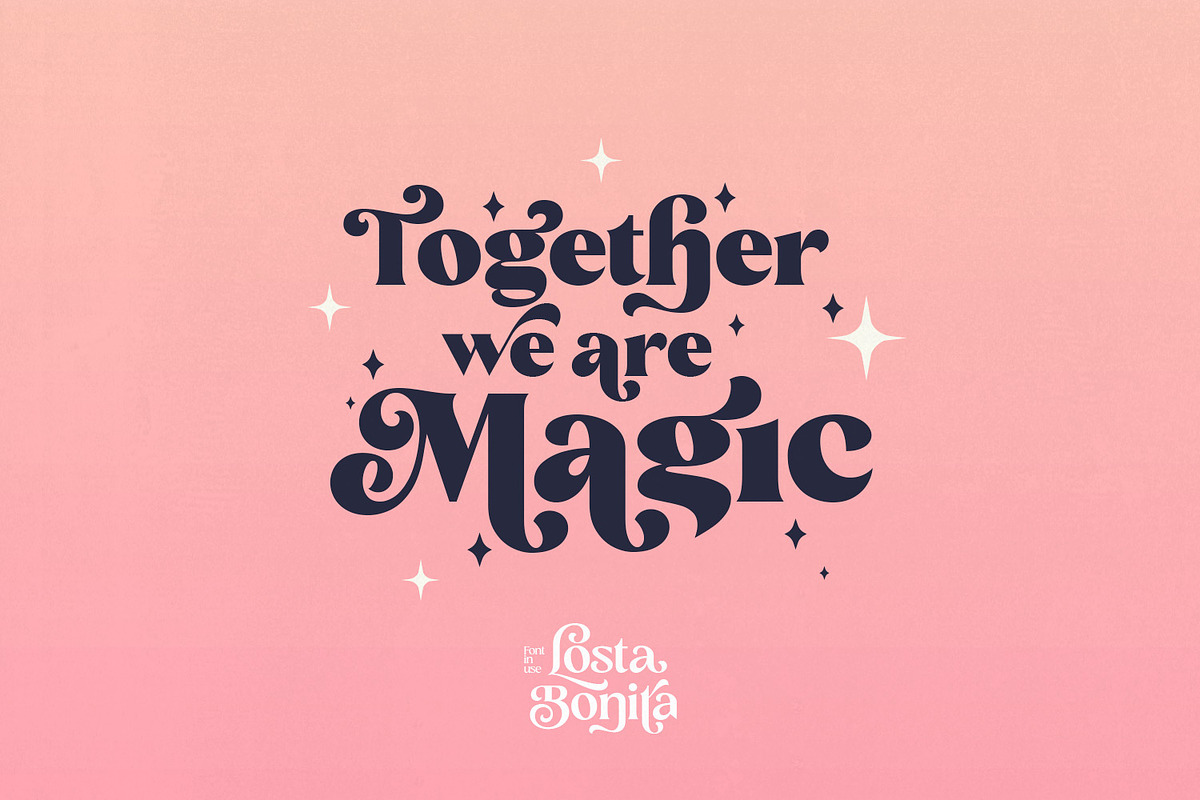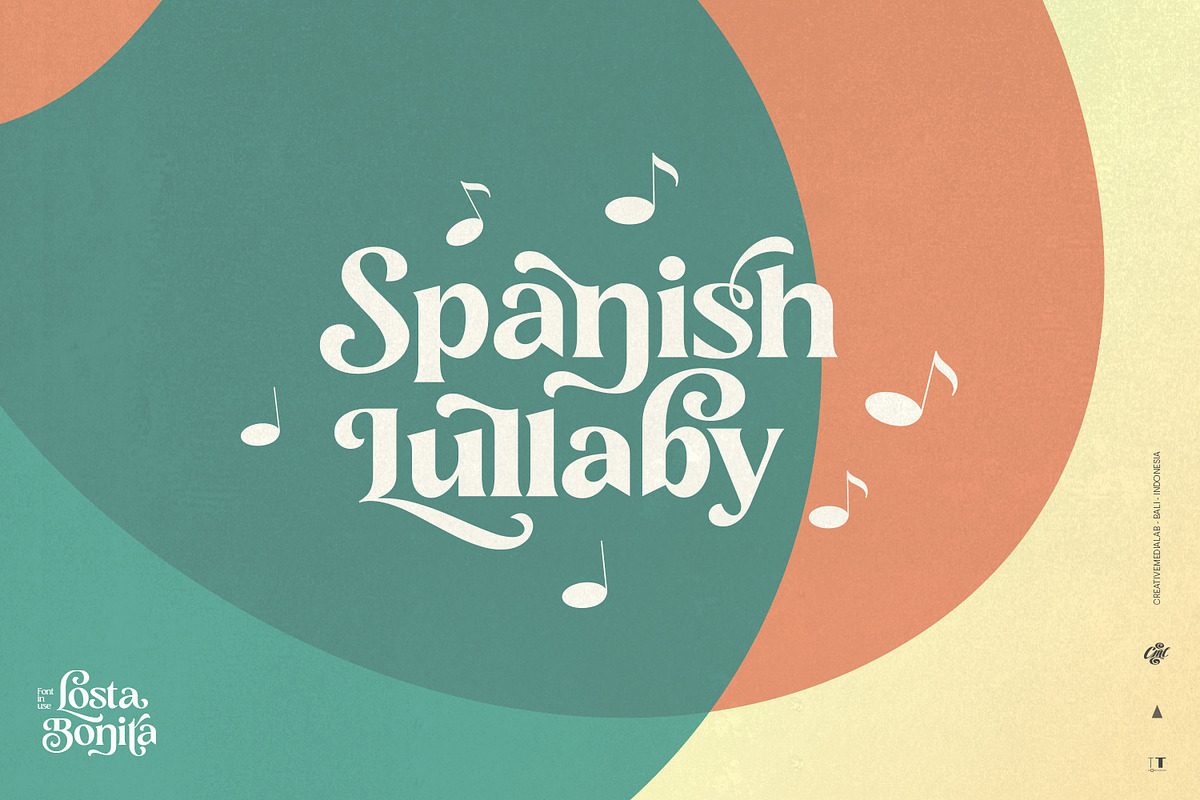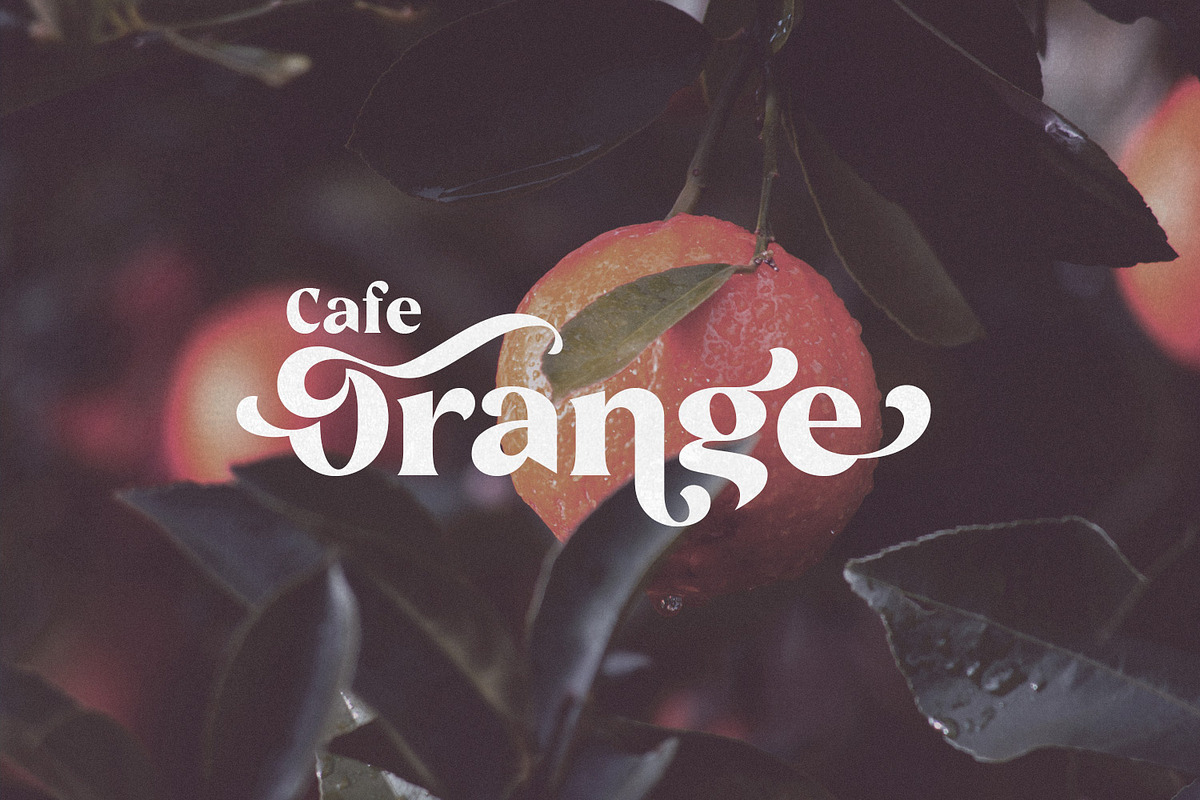
Losta Bonita Font
Losta Bonita is a modern, vintage, and retro serif font family. Consists of 9 weights from thin to black and variable format. The stylistic alternates allow many different unique shapes that give your lettering idea a well-looking look. Supported Languages: Western Europe, Central/Eastern Europe, Baltic, Turkish, Romanian.